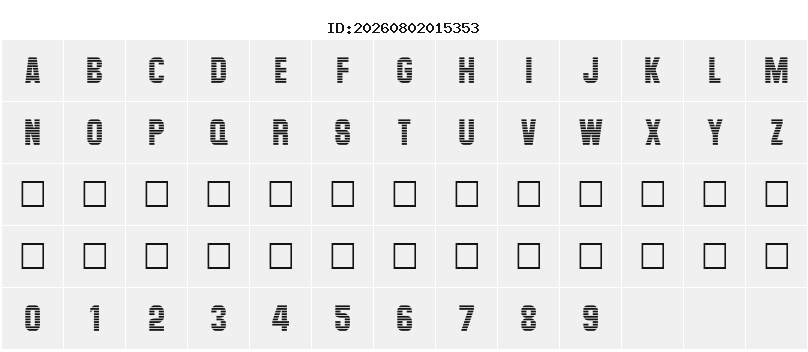
Maverick Preview
• Font Name: Maverick
• Full Font Name: Maverick Regular
About Maverick.ttf
Maverick.ttf is a modern, elegant sans-serif font designed for ultimate readability and visual harmony. Perfect for branding, headlines, web design, and print materials.